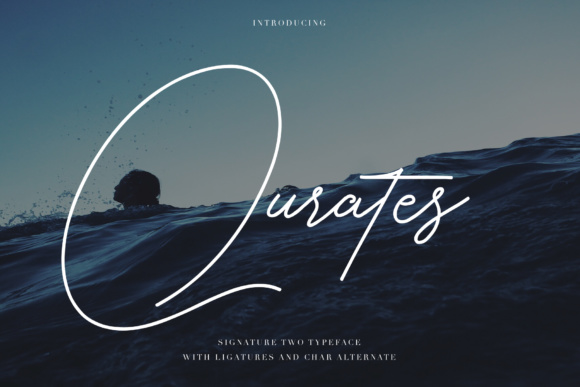
Journey into the Realm of Qurates Signature Two: The Script of Elegance and Allure
In the realm of typography, fonts possess the power to orchestrate emotions, evoke memories, and captivate audiences. They are the architects of visual communication, weaving tales through their intricate strokes and nuances. Among this symphony of letters dances Qurates Signature Two, a script font that embodies grace, sophistication, and timeless appeal.
Crafted with meticulous precision by typobureaustudio, Qurates Signature Two is a monoline script font, its slender lines flowing effortlessly across the page. This unique characteristic lends it a sense of lightness, fluidity, and an almost ethereal quality. The thin strokes create a delicate balance, exuding both strength and elegance, making it a versatile choice for a multitude of design projects.
Whether you're a seasoned designer seeking to infuse your creations with a touch of refinement or an aspiring artist yearning for a font that mirrors your creative spirit, Qurates Signature Two awaits your embrace. Its versatility shines in logos, branding, wedding invitations, social media posts, and any project where a touch of elegance is desired.
Unleash your imagination and let the graceful strokes of Qurates Signature Two dance across your designs, captivating your audience with their charm and allure. This font is not merely a tool; it is an extension of your creativity, a whisper of sophistication that elevates your work to new heights of visual splendor.